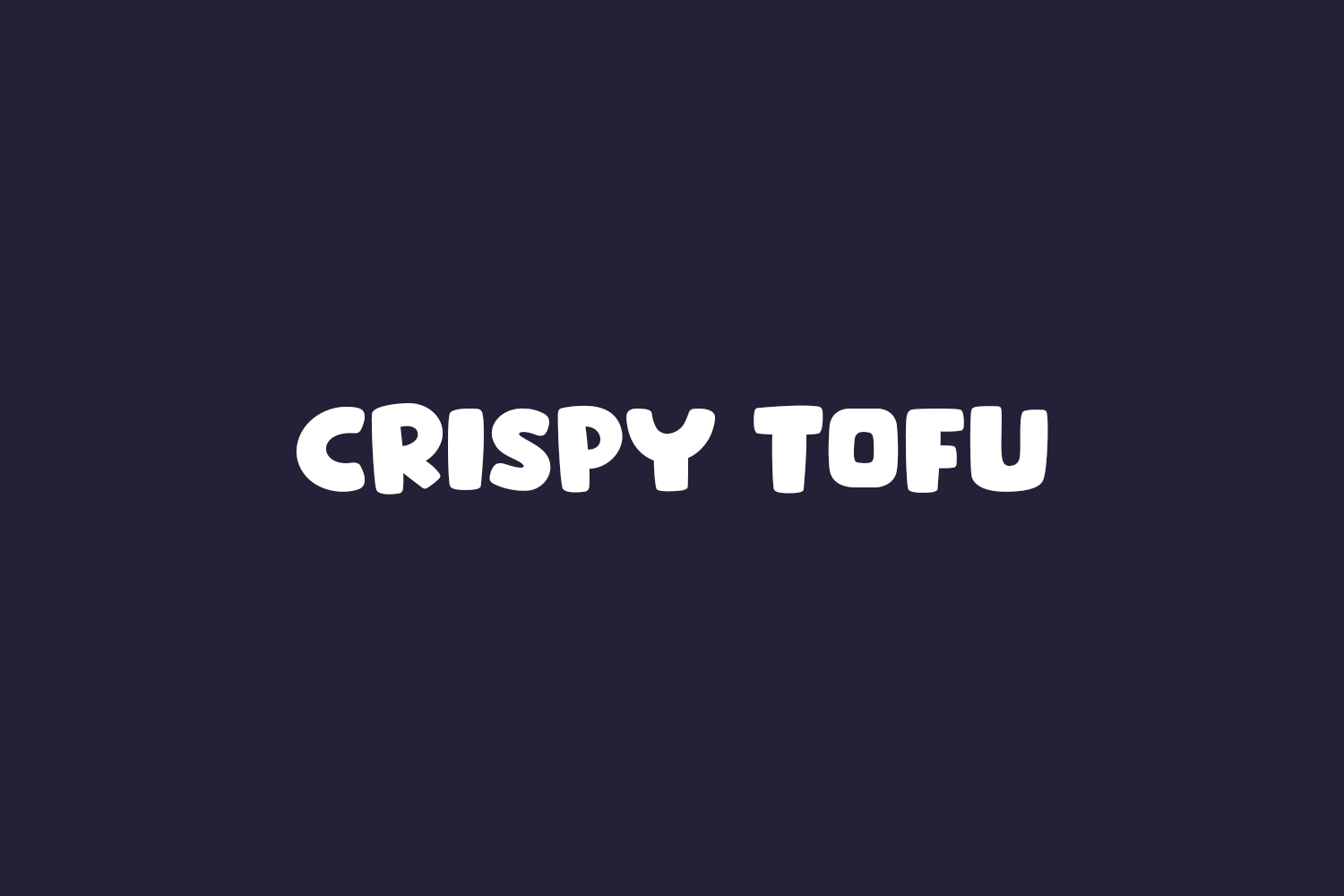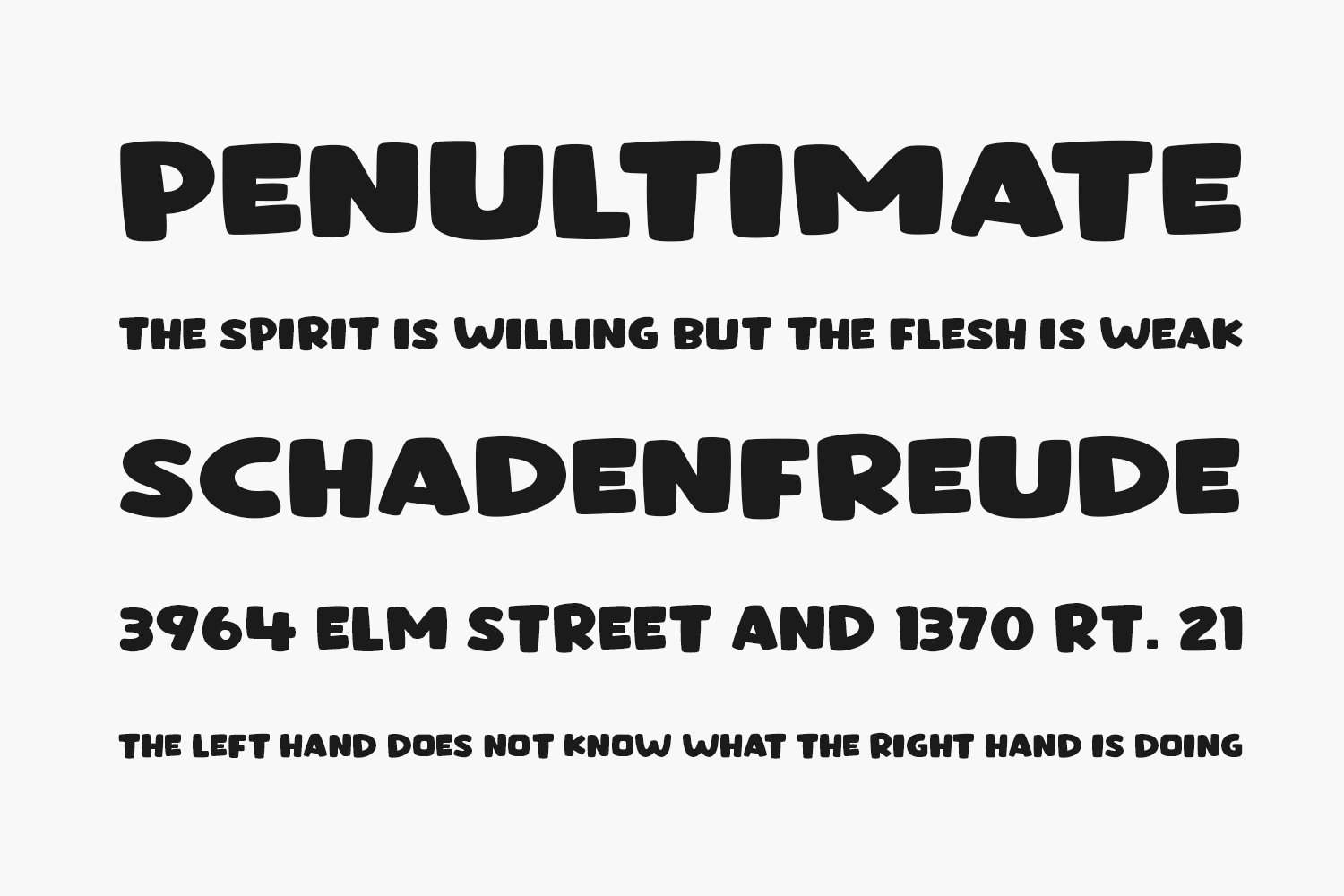
Crispy Tofu Free Font is a fun, retro-styled, and cool display font. Whether you use it for cartoon-related designs, children’s games, or just any creation that requires a lovely touch, this font will be an amazing choice. Crispy Tofu Free Font was designed by Khurasan and is free for personal use only. Please purchase the full version for commercial use.